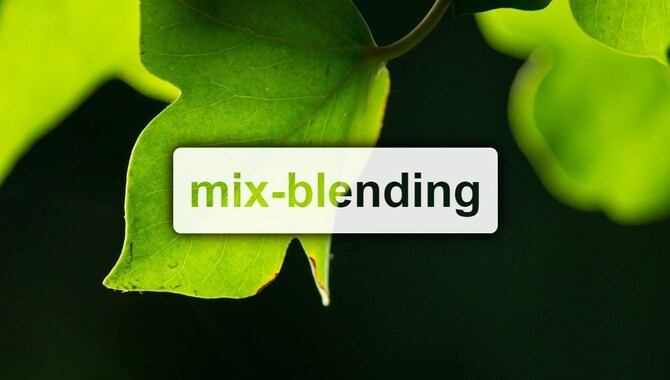
The Art Of Transparency: Understanding Font Opacity In Design
Transparency in design is not just a trend; it’s an art form. It brings depth and dimension to your designs, making them more engaging and visually appealing. One important aspect of transparency is font opacity.
Understanding how to use font opacity in your designs can take your work to the next level. Here we will dive deep into the topic of font opacity in design. From understanding what it is to learn how to use it effectively with CSS, we will cover everything you need to know about font opacity.
We will also explore hover opacity effects and creating opacity gradients using CSS. So, whether you are a seasoned designer or just starting, this post will help you master the art of transparency in design.
Font Opacity In Design
The Art Of Transparency
Transparency in design is an art. Visual interest and hierarchy can be achieved by using Opacity in fonts. Legibility should be considered while using it on various backgrounds. Different effects, such as layering and blending modes, can be tested for uniqueness. Intentional usage of Opacity is necessary; too much of it makes the text hard to read.
Font opacity in CSS can be set using RGBA values, background-color property, text-opacity property, border-opacity property, image-opacity property, and hover-opacity effects on CSS elements without starting with the primary keyword ‘font opacity.’
Understanding Font Opacity In Design
When designing with fonts, it’s essential to remember the level of transparency or “see-through” quality known as font opacity. By effectively using different levels of font opacity, you can create depth and layering within your design while adding subtlety and elegance by lowering it.
Consider contrasting the font color and background when adjusting its Opacity to achieve optimal results with your designs. By experimenting with different levels of font opacity and incorporating CSS properties like RGB values or alpha parameters, you can make your designs unique and creative.
Font Opacity In CSS
Adjusting the transparency of font opacity in CSS can be accomplished through various methods. For instance, one approach uses RGBA values, allowing you to adjust text opacity without affecting background transparency.
Alternatively, you can leverage the ‘opacity’ property for changing an element’s transparency values (including all child elements).
For optimal readability, ensure you avoid setting text Opacity too low and test your design on various devices and display sizes. Furthermore, the documentation suggests you consider other aspects, such as the contrast ratio between text color and its background, when working with opacity values such as alpha channel or RGB/a values.
Setting Opacity Using RGBA
When modifying font transparency with CSS, use RGBA color values to modify the font’s Opacity without affecting the background. Setting the alpha parameter between 0 and 1 in RGBA values allows you to achieve varying degrees of transparency in your text while maintaining legibility.
Css Background Opacity
Background opacity in CSS is a powerful feature that allows you to adjust the transparency level of an element. This amazing property can be applied to the entire element and selectively to its child elements, text, and even backgrounds.
Using RGB color values instead of hex codes, you can set color and Opacity in one line of code, making it efficient from a development standpoint. However, it’s important to use this feature judiciously and test it across various devices and screen sizes for optimal visibility without compromising the privacy policy or rendering issues.
Text Opacity In CSS
The text opacity property makes adjusting the transparency of text in CSS possible. It controls the whole text block or specific letters/words without compromising readability. Combining this with color can create subtle visual effects, although it’s important to consider background color and contrast for optimal results.
Secondary keyterms used: transparency, css property, RGB values, HTML, opaque, opacity property, font size, font-weight, font-family
Border Opacity In CSS
You can achieve various visual effects by adjusting the border opacity of an element in CSS using the “border-opacity” property. It gives you control over the transparency of your borders without compromising on the content inside them.
The opacity value you set for borders will create different effects, like faded or blurred borders, adding subtle yet beautiful details to your designs. But remember, use this CSS property judiciously and ensure it complements your overall design language.
5.What Are The Benefits Of Using Font Opacity?
Ans: Font opacity provides subtle and sophisticated design options, improves readability on busy backgrounds, creates visual hierarchy, and adds depth to typography. It’s a useful tool for designers seeking to enhance their designs while maintaining legibility.